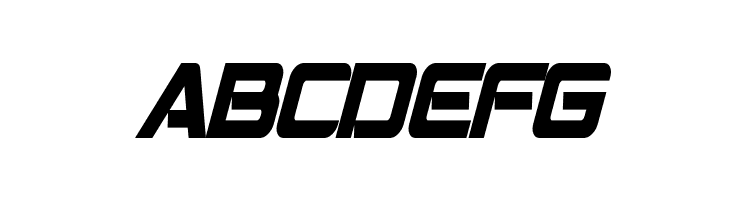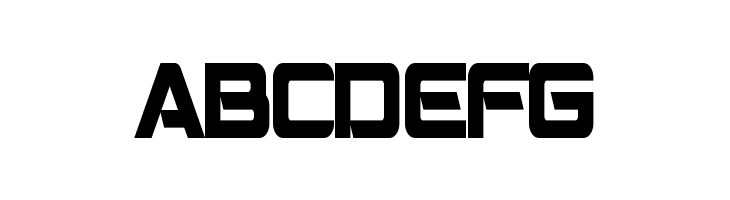
A bold, italicized, and condensed font with a modern and dynamic style.
A bold, condensed, and modern geometric font with high contrast and sharp angles.
A bold, geometric, and condensed font with a modern and futuristic style.
A sleek, modern, condensed italic font with bold strokes.